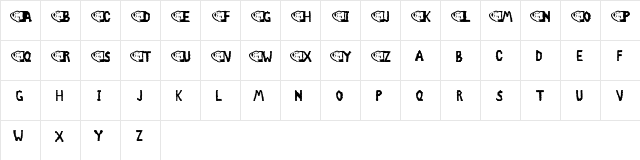
Chlod Regular Font Preview
Chlod Regular
Design Context for Chlod Typeface
Chlod is a composed and adaptable typeface that performs quietly and consistently across a wide range of design contexts.